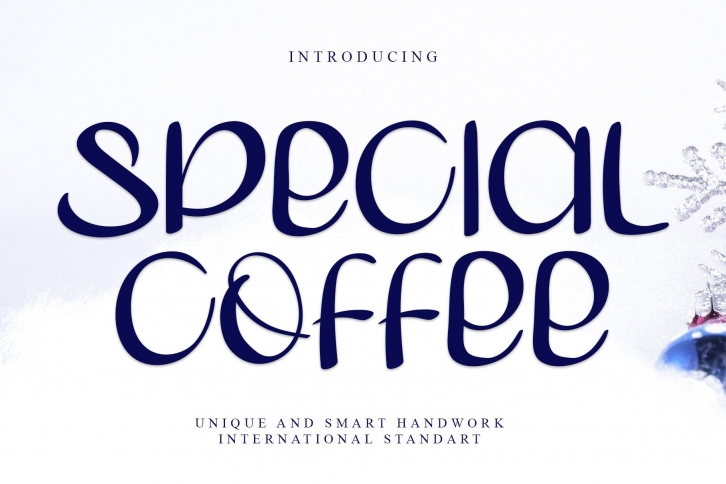
Special Coffee is a unique and playful handwritten font. With neat characters and a modern style, this typeface would make a wonderful addition to your fonts library, as it has the potential to enhance any creation!